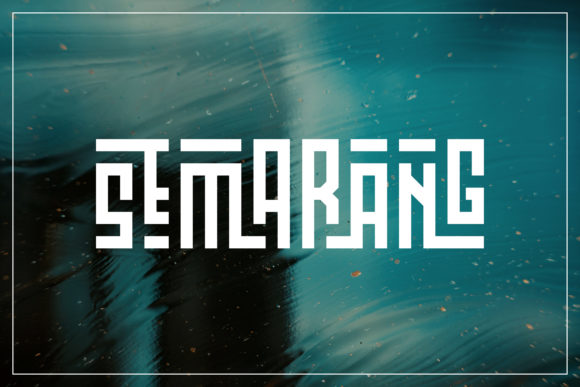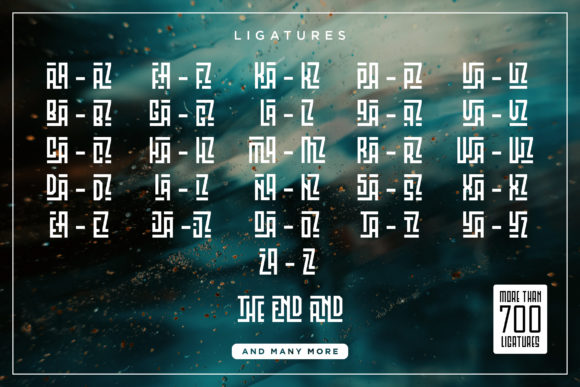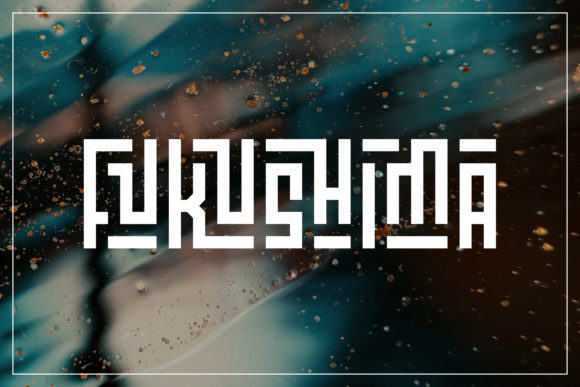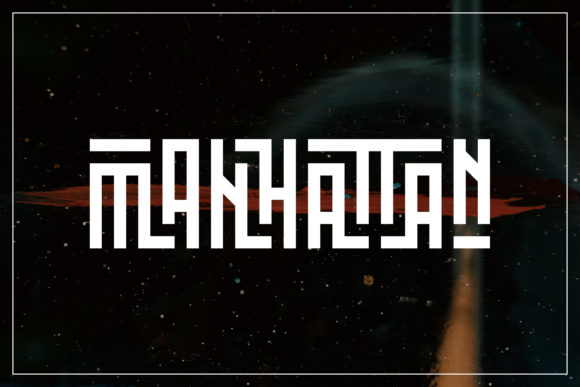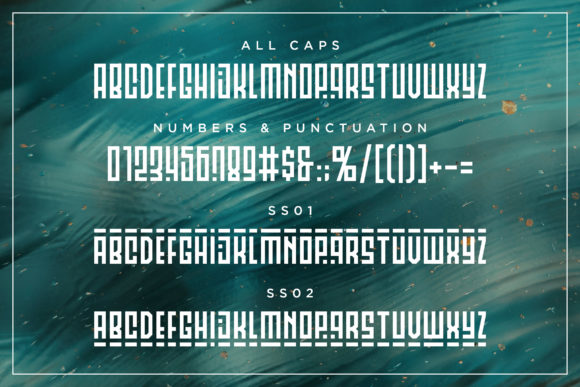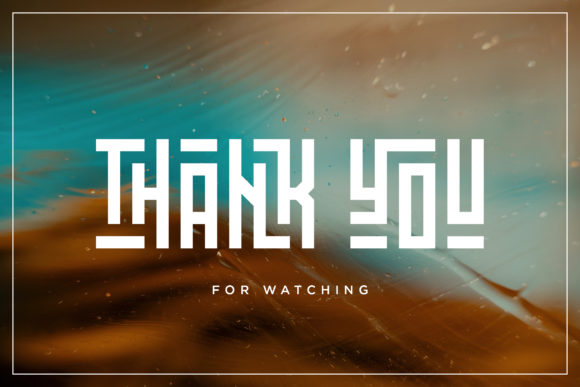
Introduction to Musashi Font Font
Fonts play a crucial role in design, and the Musashi Font font is a typeface that brings both character and versatility to any project. Whether you’re working on a branding project, a website, or a print design, the Musashi Font font offers a unique style that can elevate your work.
Musashi is a modern display font with a unique style.
Use it for any design project that requires a personalized appearance .
Key Features of Musashi Font Font
Why Choose Musashi Font Font?
The Musashi Font font is more than just a typeface – it’s a design tool that helps you communicate your message with style and clarity. Its unique character set and versatile design make it suitable for a wide range of applications, from elegant invitations to bold headlines.
With its carefully crafted letterforms and balanced proportions, the Musashi Font font ensures readability and visual appeal across all mediums.
What makes Musashi Font font special?
The Musashi Font font stands out with its unique design, exceptional readability, and versatility across various design applications.